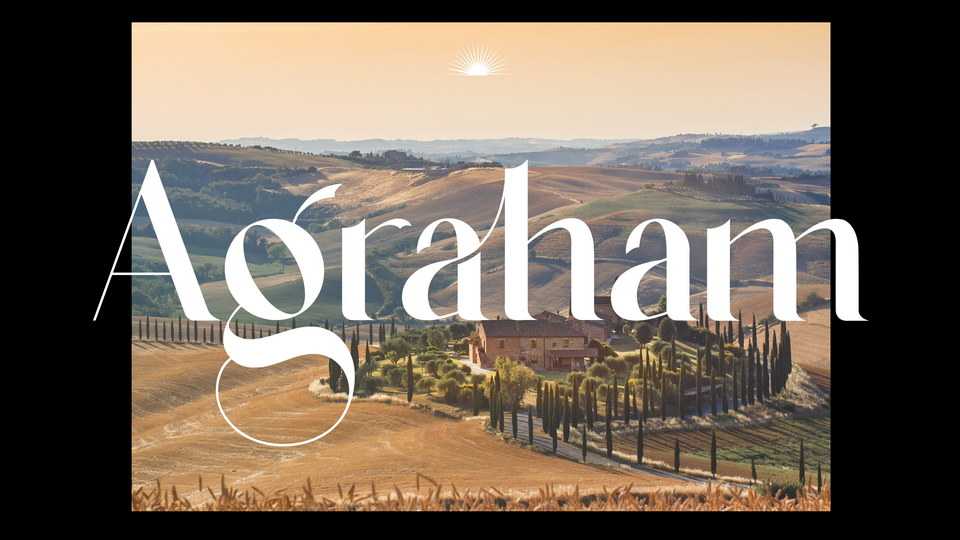
Download Agraham font, an aesthetic serif typeface which the inspiration come from the unique Italy’s vibes and some little touch from the beauty of Paris, France.